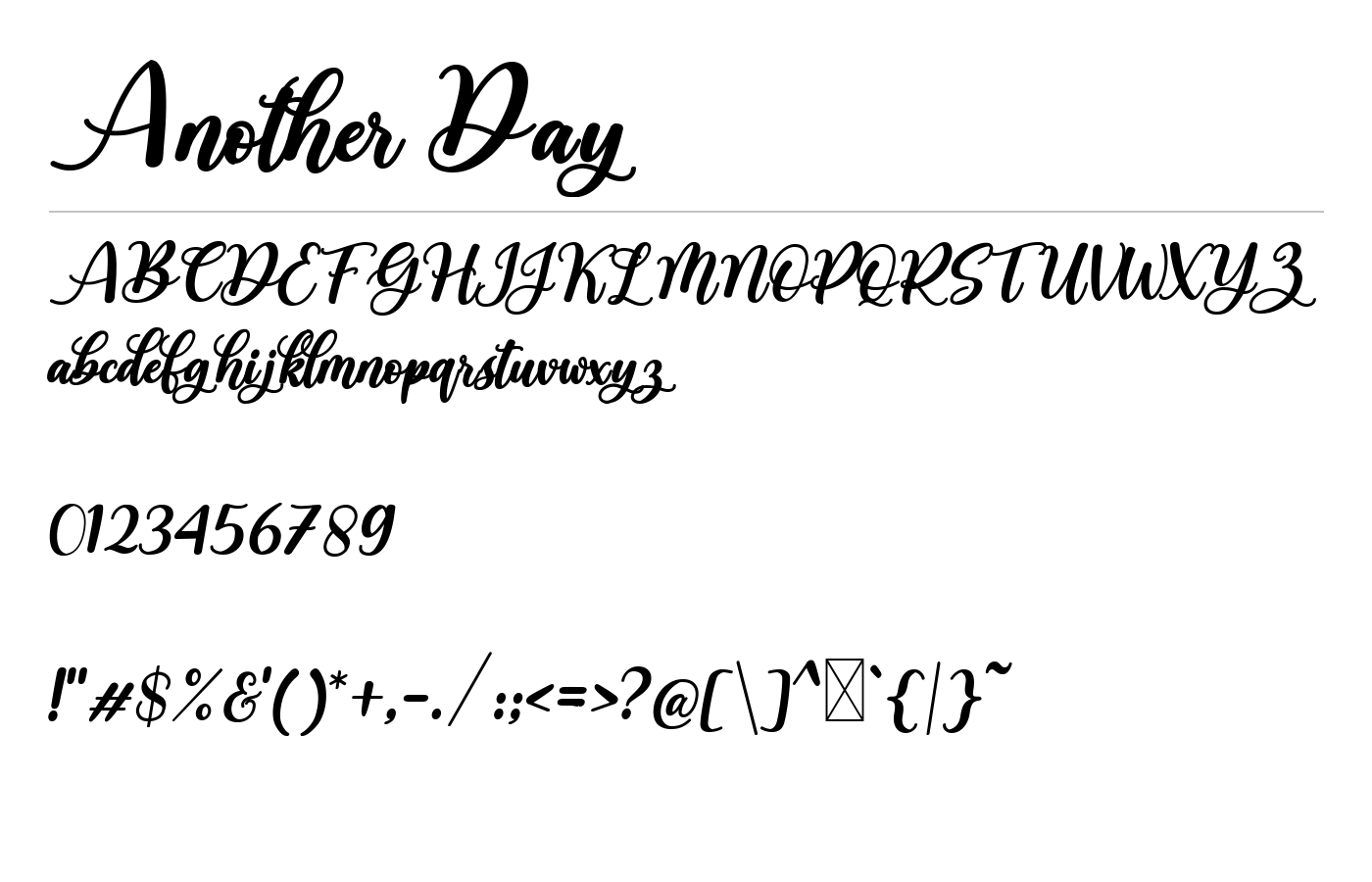
Another Day is a graceful script font with elegant, flowing strokes and a moderate contrast that adds sophistication without sacrificing legibility. Its smooth, connected letterforms and distinctive swashes make it perfect for invitations, branding, and stylish headlines where a personal, refined touch is desired. This font brings a sense of charm and warmth, making it ideal for fashion, beauty, and luxury design projects.
Another Day Font
About Another Day Font
| Font family | Another Day Font |
| Designer | QARA ANASS |